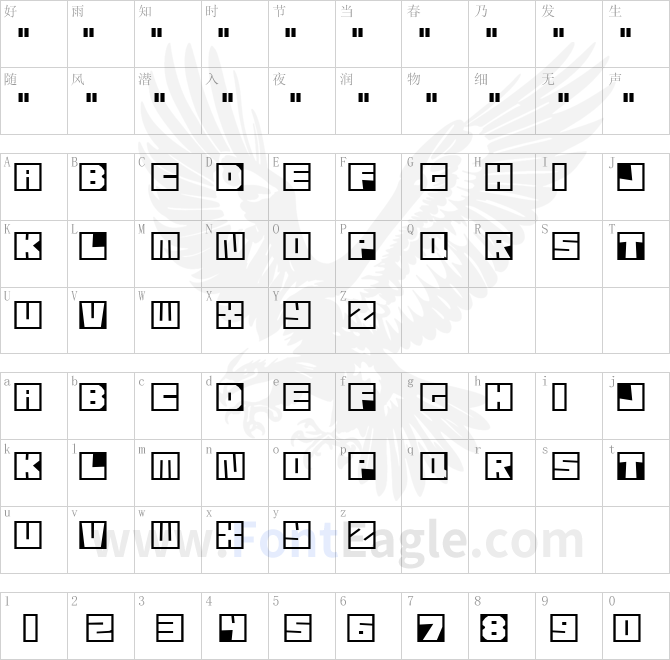
- Font name:EtcherSkesch Regular
- Font Subfamily ID:P.D.Magnus: EtcherSkesch: 2005
- Font Full Name:EtcherSkesch Regular
- Postscript:EtcherSkeschRegular